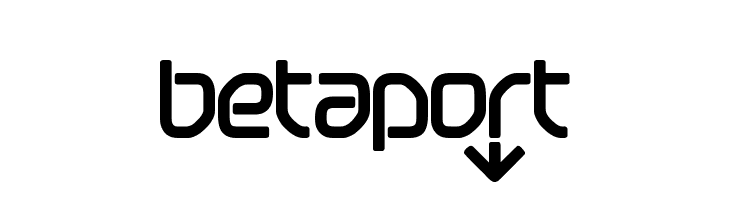
A playful, chalk-like font with a textured, hand-drawn appearance.
A grunge-style font with elegant swashes and an inline design.
A bold, playful font with rounded edges and a cohesive, friendly appearance.
A bold, italic font with a dynamic and modern style.
A graceful, flowing script font with elegant, thin strokes and seamless character connections.
A bold, modern font with a futuristic and geometric design.
A bold, textured font with a hand-drawn, artistic style.
设计师偏爱 Land Whale Outline, Very Simple Chalk, VTMeiOrnaments, DJB My Boyfriend's Handwriting and Queen Inline Grunge,因为其造型干净、适用范围广—— 从品牌识别到落地页、海报都能胜任。